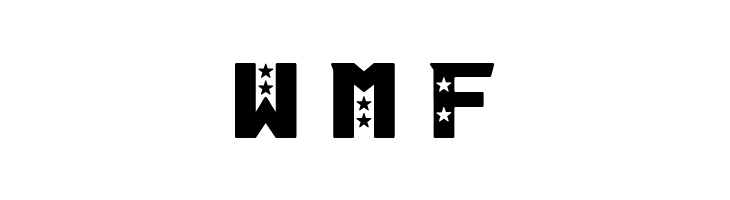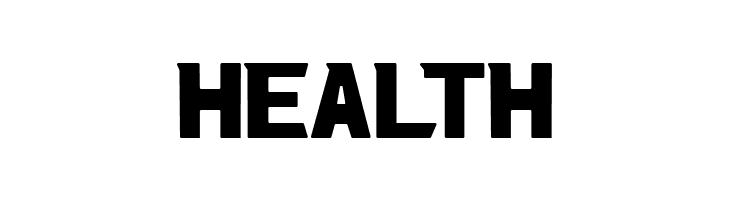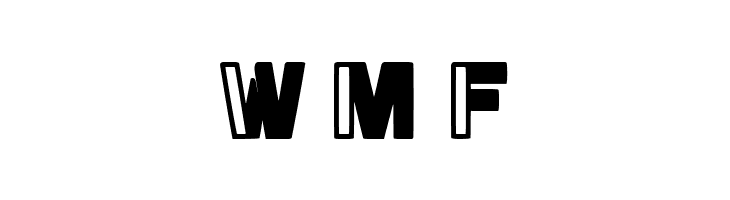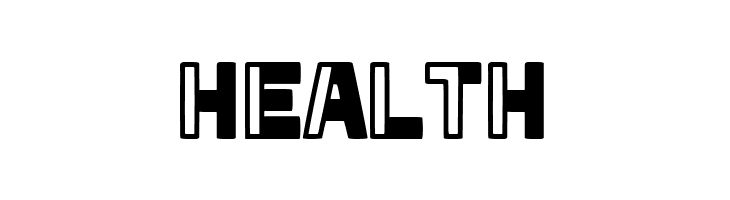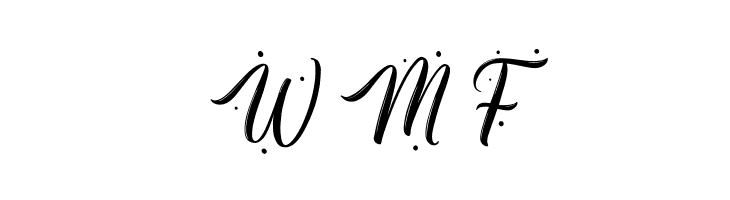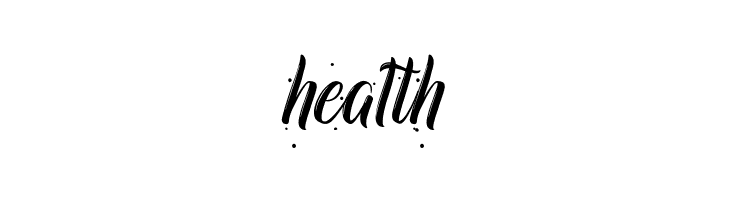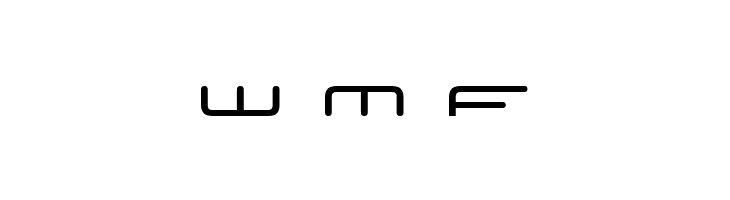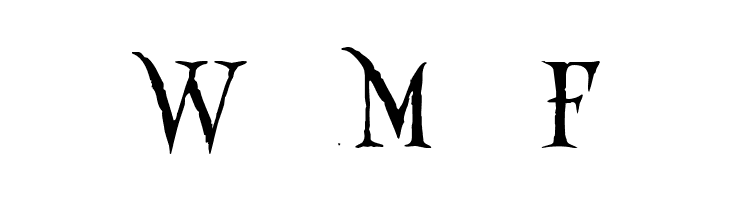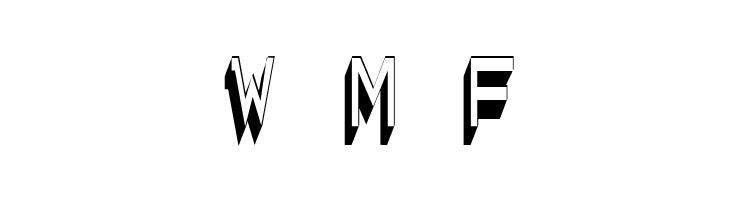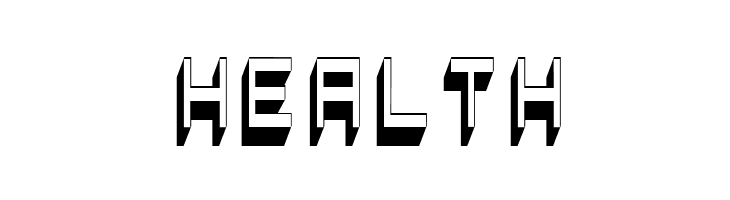
A bold, pirate-themed font with sharp serifs and a distressed appearance.
An elegant script font with decorative dots and flowing cursive strokes.
A bold, star-adorned font with a modern and decorative style.
A futuristic, geometric font with clean lines and rounded edges.
A bold, dynamic cursive font with sharp, angular strokes and a sense of movement.
A bold, brush-style font with dynamic, slanted characters.
A bold, 3D-effect font with a playful and dynamic style.
A bold, stencil-style font with geometric shapes and cut-out sections.
A bold, nautical-themed font with playful, three-dimensional characters.